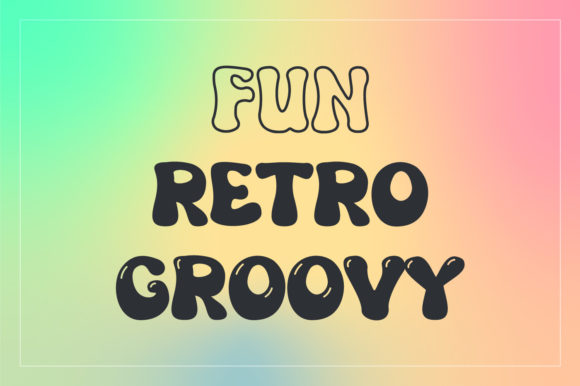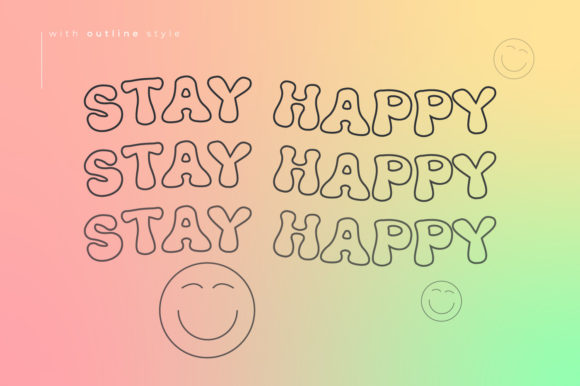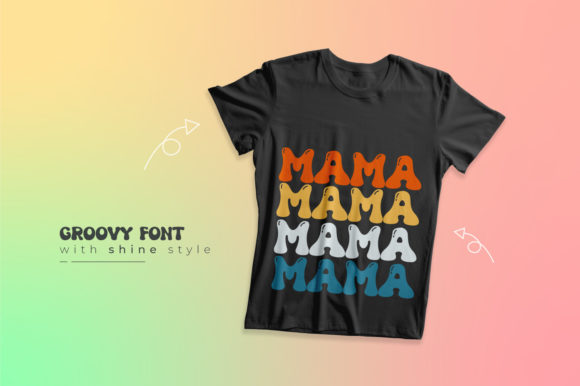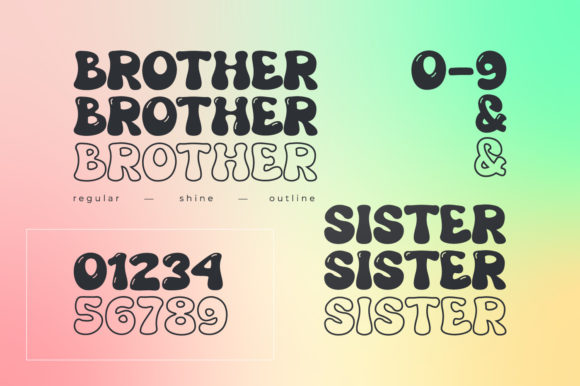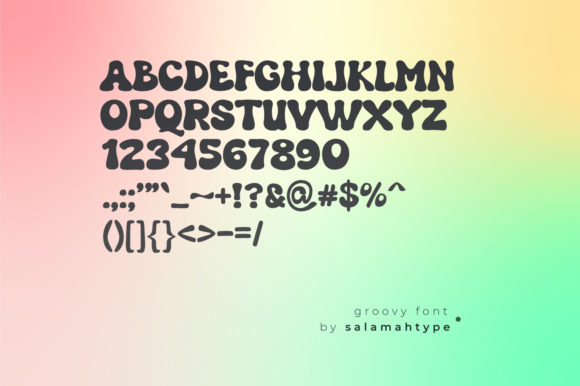
Introducing Grooven Font: The Ultimate Street-Inspired Display Font
Are you tired of using the same old fonts for your designs? Look no further! Grooven Font is here to take your creative projects to the next level. This cool, street-inspired display font is perfect for designers and crafters who want to add a touch of urban flair to their work.
What is Grooven Font?
Grooven Font is a unique and stylish display font that is inspired by the streets. Its bold and edgy design makes it perfect for creating eye-catching social media posts, advertisements, product packaging, and more. Whether you’re a designer, crafter, or DIY enthusiast, Grooven Font is a must-have in your font collection.
What Can I Use Grooven Font For?
The possibilities are endless with Grooven Font! This versatile font can be used for a wide range of projects, including:
- Social media posts: Make your Instagram, Facebook, and Twitter posts stand out with Grooven Font.
- Advertisements: Create bold and eye-catching ads that grab attention.
- Product packaging: Add a touch of personality to your product packaging with Grooven Font.
- Product design: Use Grooven Font to create unique and stylish product designs.
- Photography: Add text overlays to your photos with Grooven Font for a stylish touch.
- Quotes: Create inspiring and motivational quotes with Grooven Font.
- T-shirts: Design custom t-shirts with Grooven Font for a bold and edgy look.
- Mugs: Create personalized mugs with Grooven Font for a unique gift.
- Merchandise: Use Grooven Font to create stylish merchandise, such as stickers, posters, and more.
Why Choose Grooven Font?
So, why choose Grooven Font over other fonts? Here are just a few reasons:
- Unique design: Grooven Font has a one-of-a-kind design that will make your projects stand out.
- Versatility: Grooven Font can be used for a wide range of projects, from social media posts to product packaging.
- Easy to read: Despite its bold and edgy design, Grooven Font is easy to read, even at small sizes.
- High-quality: Grooven Font is a high-quality font that is designed to look great on any device.
Tips for Using Grooven Font
Here are a few tips for using Grooven Font in your projects:
- Use it sparingly: Grooven Font is a bold font, so use it sparingly to avoid overwhelming your design.
- Pair it with other fonts: Grooven Font pairs well with other fonts, so experiment with different combinations to find the perfect look.
- Experiment with colors: Grooven Font looks great in a variety of colors, so don’t be afraid to experiment and find the perfect color for your design.
Grooven Font is a cool, street-inspired display font that is perfect for designers and crafters who want to add a touch of urban flair to their work. With its unique design, versatility, and ease of use, Grooven Font is a must-have in any font collection. Whether you’re creating social media posts, advertisements, product packaging, or more, Grooven Font is the perfect choice. So why wait? Download Grooven Font today and take your designs to the next level!